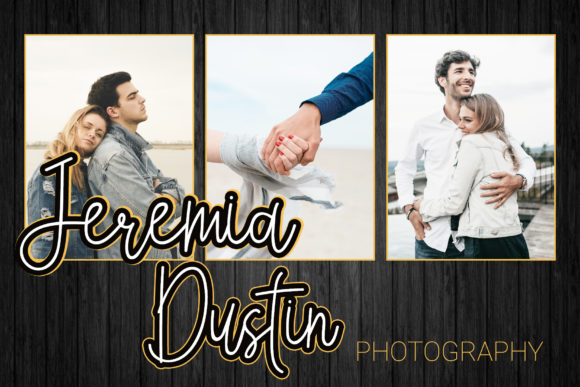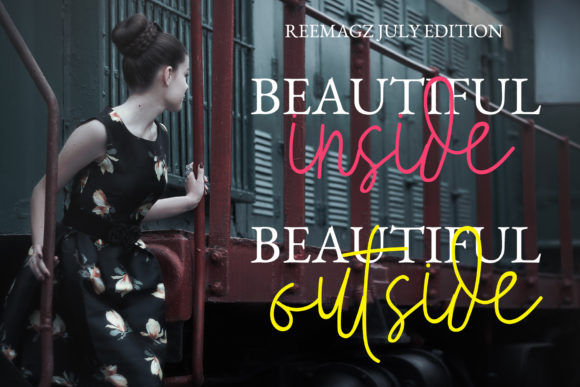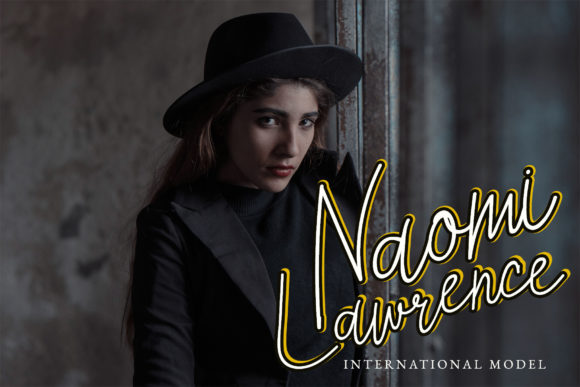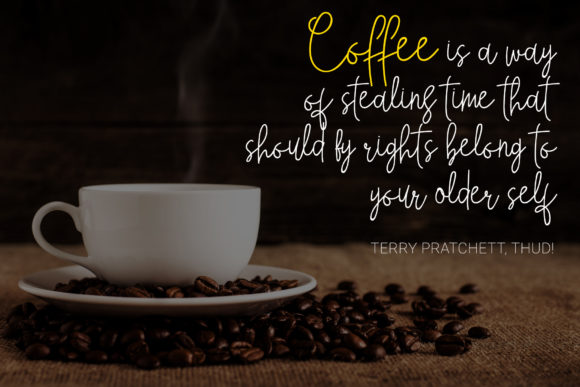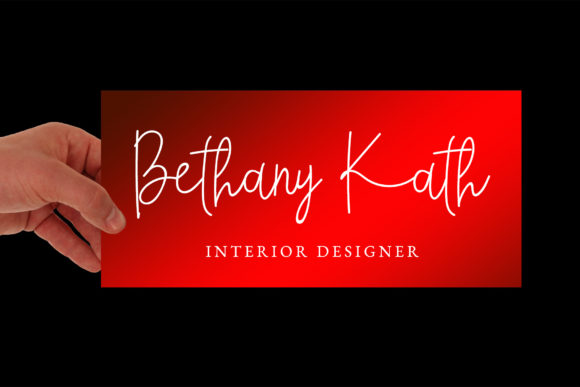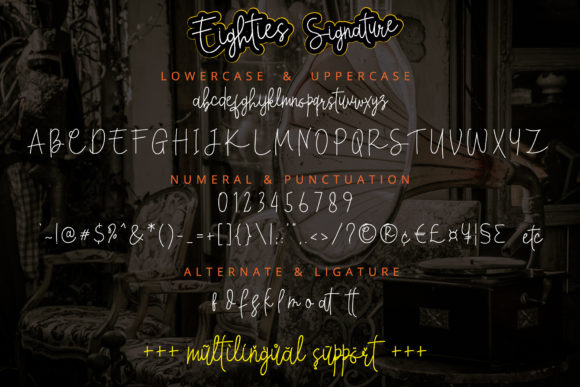
Reviving the Retro Charm: The Eighties Signature Font
The Eighties Signature font is a nostalgic gem that has captured the hearts of designers and crafters alike. This simple, yet authentic handwritten script is a perfect blend of vintage charm and modern sophistication. In this article, we’ll dive into the world of Eighties Signature and explore how it can elevate your design to the next level.
The Nostalgia of the Eighties
The 1980s was a decade of vibrant colors, big hair, and iconic designs. It was an era of self-expression and creativity, reflected in the fashion, music, and art of the time. The Eighties Signature font embodies this spirit of nostalgia, transporting us back to a bygone era of radical style and fun.
What is Eighties Signature Font?
Eighties Signature is a carefully crafted handwritten script that mimics the authentic feel of 1980s typography. Its unique charm lies in its imperfections and quirks, reminiscent of handwritten signatures from the era. The font features:
- Fluid, connected letters with varying line widths
- Authentic 80s-style letterforms and ligatures
- A warm, friendly feel that adds a personal touch to designs
Design Inspiration from the Eighties
The Eighties Signature font is a versatile design element that can be used in a variety of creative projects. Here are some design inspiration ideas to get you started:
- Retro-themed posters and flyers: Use Eighties Signature to create bold, eye-catching headlines and add a touch of nostalgia to your designs.
- Vintage-style logos and branding: Incorporate Eighties Signature into your logo design to evoke a sense of classic style and sophistication.
- Crafting and DIY projects: Add a personal touch to your handmade crafts, such as journals, cards, and scrapbook pages, with Eighties Signature.
- Wedding and event stationery: Use Eighties Signature to create unique and memorable wedding invitations, place cards, and event signage.
Why Choose Eighties Signature Font?
So, what sets Eighties Signature apart from other fonts? Here are some compelling reasons to choose this font for your next design project:
- Authentic vintage feel: Eighties Signature captures the essence of 1980s typography, adding a unique and nostalgic touch to your designs.
- : Despite its vintage charm, Eighties Signature is highly legible and easy to use in a variety of design applications.
- High-quality and versatile: This font is suitable for both digital and print designs, making it a versatile addition to your font library.
Getting Creative with Eighties Signature
Ready to unleash your creativity with Eighties Signature? Here are some tips to get you started:
- Experiment with colors and textures: Combine Eighties Signature with bold colors and textures to create visually striking designs.
- Mix and match with other fonts: Pair Eighties Signature with modern fonts for a unique contrast that adds depth to your designs.
- Add illustrations and graphics: Incorporate vintage-style illustrations and graphics to complement Eighties Signature and enhance your design.
The Eighties Signature font is a design treasure that will transport your creations back to the iconic 1980s. With its authentic vintage charm and versatility, this font is perfect for designers and crafters looking to add a touch of nostalgia to their work. Get inspired by Eighties Signature and take your design to the next level!